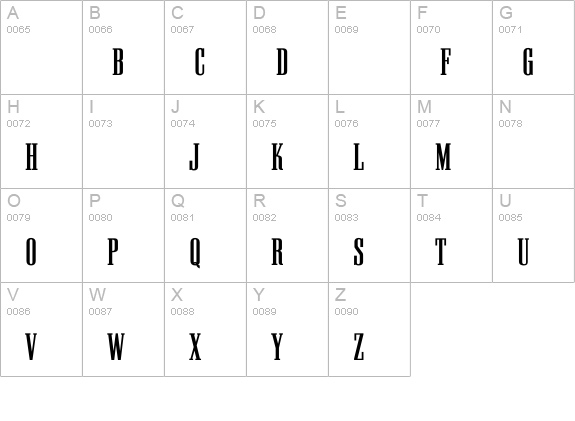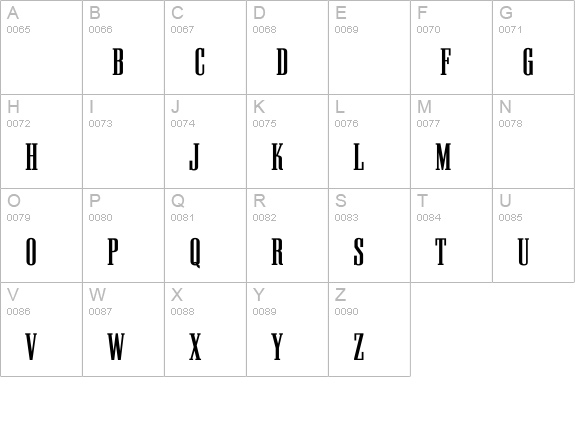
PallMallBold Font Details
Introducing PallMallBold, a captivating font that exudes a sense of boldness and sophistication. With its strong lines and distinctive letterforms, this typeface commands attention and adds a touch of elegance to any design project. PallMallBold is the perfect choice for those seeking a font that effortlessly combines strength and style. Its sleek and contemporary design makes it versatile and adaptable to a wide range of creative endeavors, including branding, advertising, packaging, and more. Whether used in headlines, titles, or body text, this font ensures a visually striking and memorable result. One of the standout features of PallMallBold is its meticulous attention to detail. Every curve and stroke has been meticulously crafted to create a harmonious and visually pleasing aesthetic. The result is a font that is not only visually appealing but also highly legible, ensuring clear communication of your message. What sets PallMallBold apart from other fonts is that it is freely available to download at FontsMarket.com. This means that you can unleash your creativity without any restrictions or limitations. Whether you are a professional designer or a passionate hobbyist, PallMallBold offers you the freedom to explore and experiment with typography to bring your visions to life. Don't miss the opportunity to elevate your design projects with the captivating allure of PallMallBold. Download it today at FontsMarket.com and experience the seamless blend of boldness, style, and freedom that this font has to offer. Embrace the power of PallMallBold and let your creativity soar to new heights.